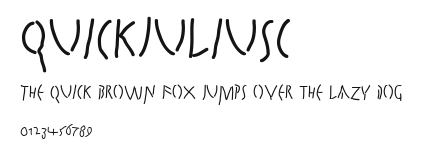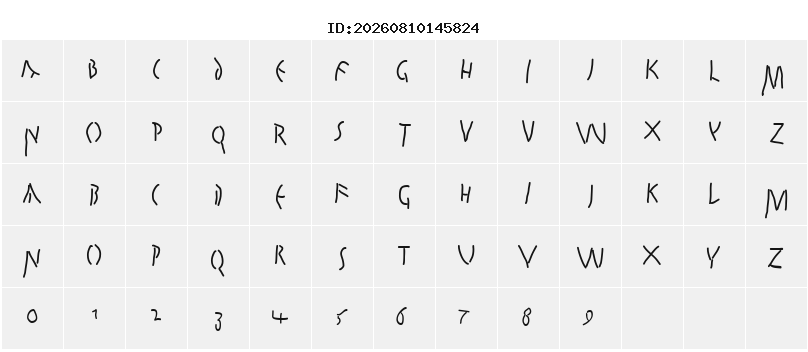
QuickJuliusC Preview
• Font Name: QuickJuliusC
• Font ID: QuickJuliusC
• Full Font Name: QuickJuliusC
• Version: 1.0 2004-12-29
• PostScript Name: QuickJuliusC
About QuickJuliusC.ttf
QuickJuliusC.ttf is a modern, elegant sans-serif font designed for ultimate readability and visual harmony. Perfect for branding, headlines, web design, and print materials.